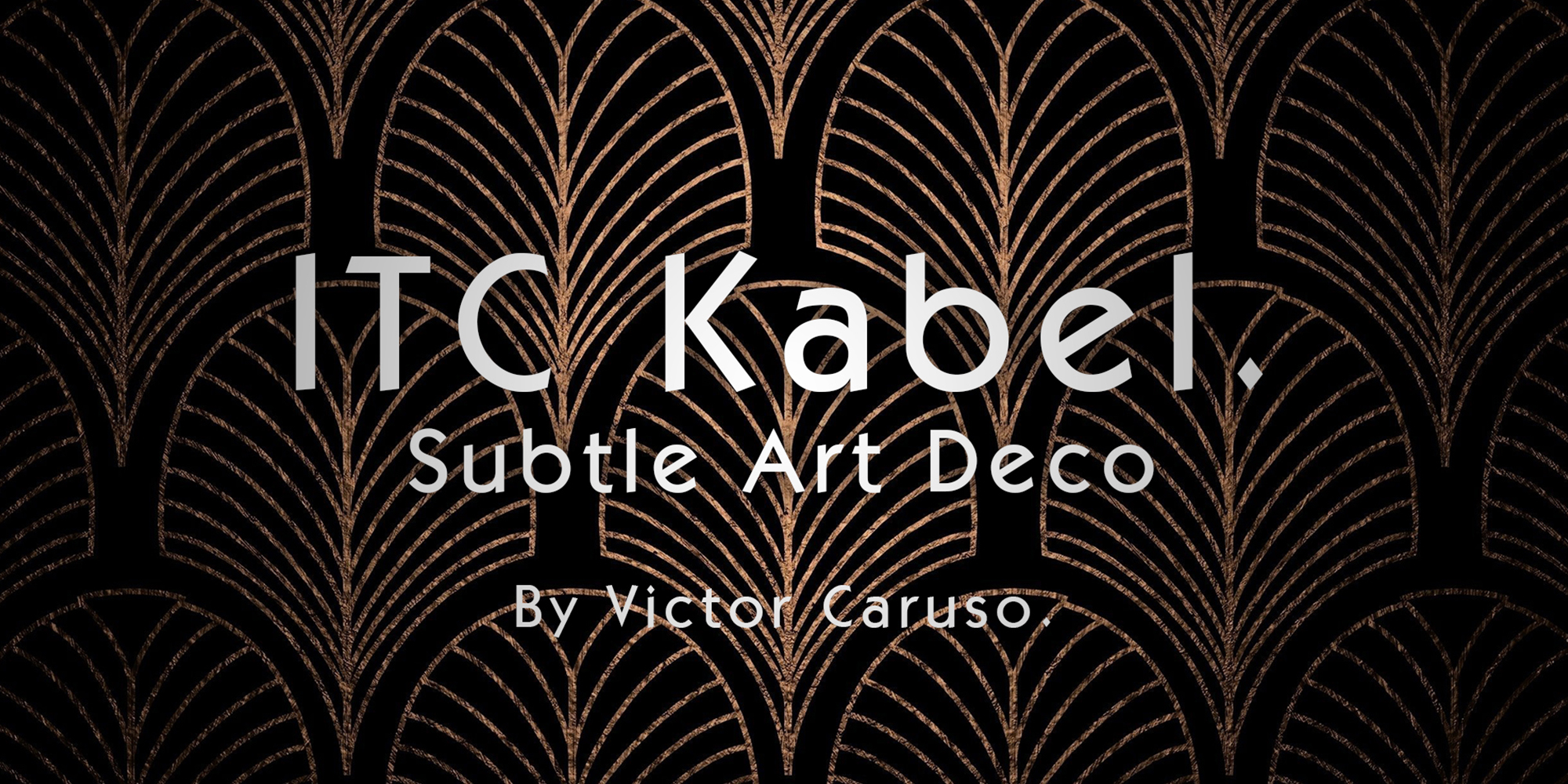
Kabel Font Free Download is a classic and distinctive geometric sans-serif typeface, first designed in the 1920s and celebrated for its unique blend of clean, modernist geometry with a charming, almost handcrafted warmth. It's ideal for designs that aim for a retro-futuristic, elegant, or distinctly European aesthetic. Imagine it gracing vintage-inspired advertising campaigns, sophisticated book covers, unique boutique branding, or charming magazine headlines. Its clear, yet characterful lines also make it an excellent choice for product packaging, event posters, and any project where a sense of timeless design and approachable modernity is paramount. Kabel Font offers the stylistic clarity and historical gravitas to elevate your creative vision.
What makes Kabel Font truly exciting is its enduring appeal and its ability to bridge different design eras. Unlike stricter geometric sans-serifs, Kabel often features subtly varied stroke weights and a slight eccentricity in some letterforms, giving it a distinctive personality that feels both precise and human. This isn't just another sans-serif; it's a meticulously crafted font that brings a unique blend of historical significance and robust functionality to any text. Designers appreciate its strong visual impact and how it can instantly bring a cohesive and refined look to any project, making it a reliable choice for designs that demand both aesthetic quality and practical performance with a touch of unique charm.
The Kabel Font family is typically comprehensive, offering an extensive range of weights to ensure maximum versatility across diverse design needs. You can generally expect to find a full spectrum of weights, from Light and Book to Regular, Medium, Bold, Heavy, and Black, often accompanied by their corresponding italic and oblique versions. Many families also include condensed or display variations, further enhancing its flexibility for specialized applications. This broad array allows for superb typographic hierarchy within your designs, enabling you to create dynamic and engaging visual compositions that maintain a consistent, high-quality aesthetic throughout. This makes Kabel Font Free Download a powerful asset for any designer seeking a typeface that is both functional and beautifully distinctive.